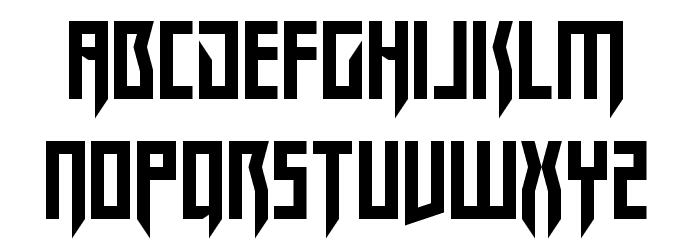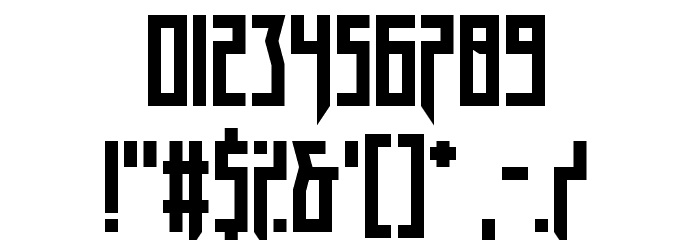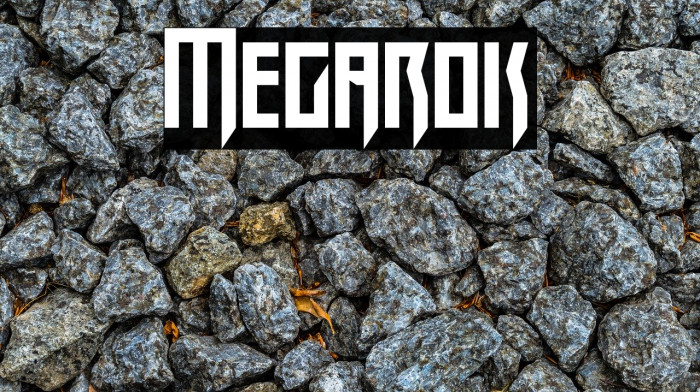
Megarok Font
This font features a bold, geometric design with sharp angles and a futuristic aesthetic. The characters are constructed with thick, straight lines and angular cuts, giving it a distinct, edgy appearance. The uppercase letters are uniform in height, while the lowercase letters maintain a consistent style, enhancing readability. The numerals and special characters follow the same geometric pattern, ensuring a cohesive look across all glyphs. This font's striking design makes it ideal for projects that require a modern and impactful visual statement.
- Proposed Projects: Ideal for sci-fi themed designs, video game titles, posters, and branding that requires a modern and edgy look.
- Overall Style: Futuristic